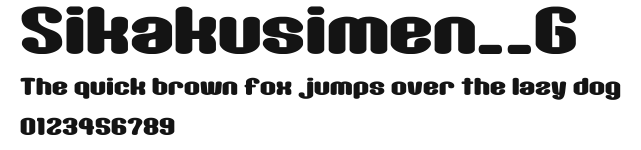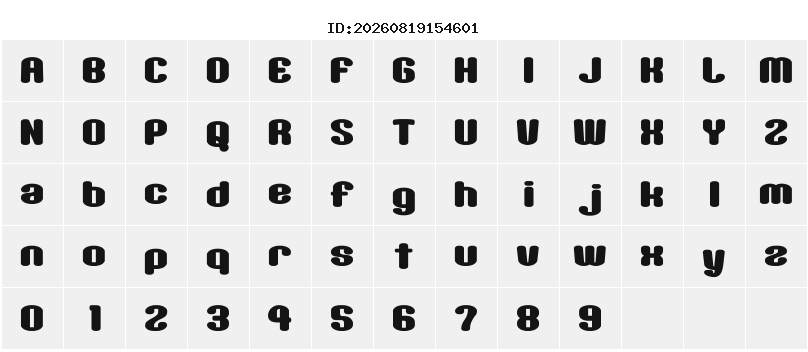
• Font Name: Sikakusimen__G
• Full Font Name: Sikakusimen__G
• Version: Ver.2 Gomarice Font 2011/10/01
About Sikakusimen__G.ttf
Sikakusimen__G.ttf is a modern, elegant sans-serif font designed for ultimate readability and visual harmony. Perfect for branding, headlines, web design, and print materials.